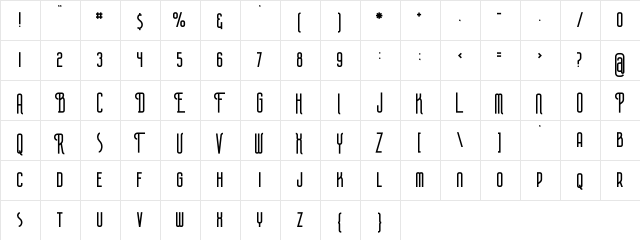
Plasma Regular Regular
| Foundry | cruzine |
| Designer | cruzine |
Design Context for Plasma Regular Typeface
Plasma Regular is a composed and adaptable typeface that performs quietly and consistently across a wide range of design contexts.